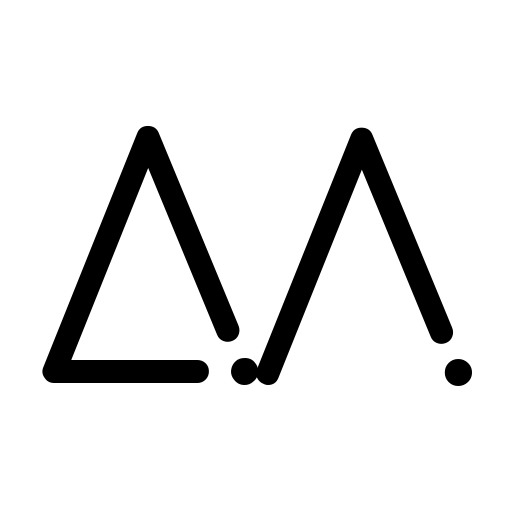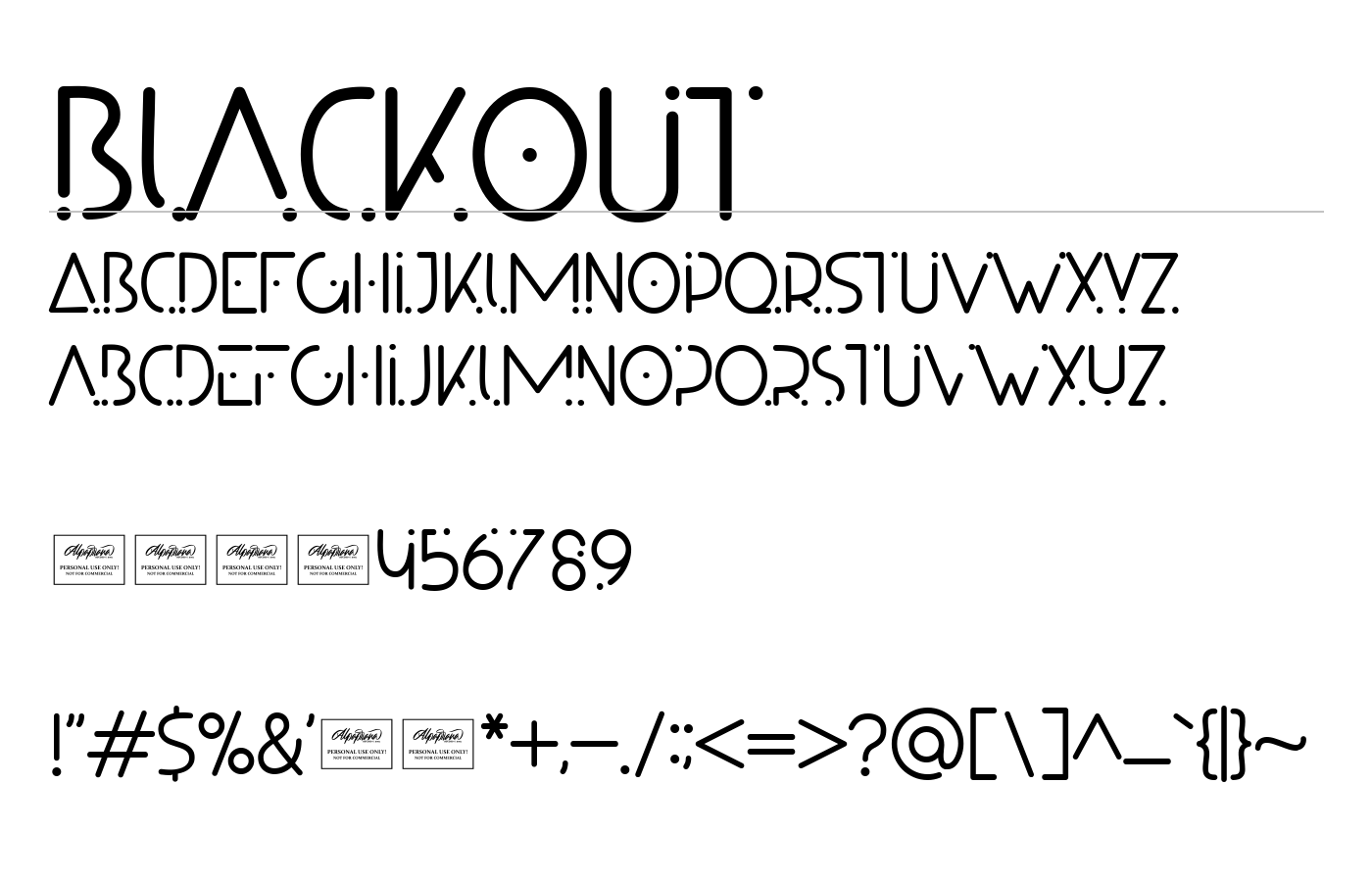
Blackout Font is a modern, geometric sans serif typeface with a distinctive, playful style characterized by thin strokes and unique dotted accents on many characters. Its narrow width, low stroke contrast, and single-story letterforms create a futuristic and whimsical feel, making it ideal for eye-catching headlines, branding, and creative design projects where a bold, unconventional look is desired. This font works well in fashion, tech, and entertainment industries, adding a sense of innovation and fun to any visual presentation.
Blackout Font
About Blackout Font
| Font family | Blackout Font |